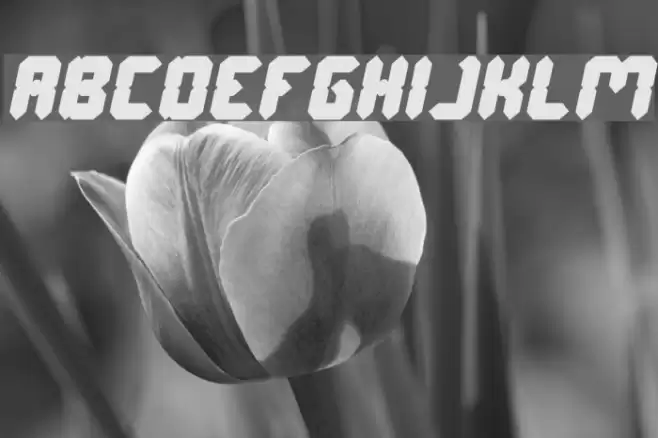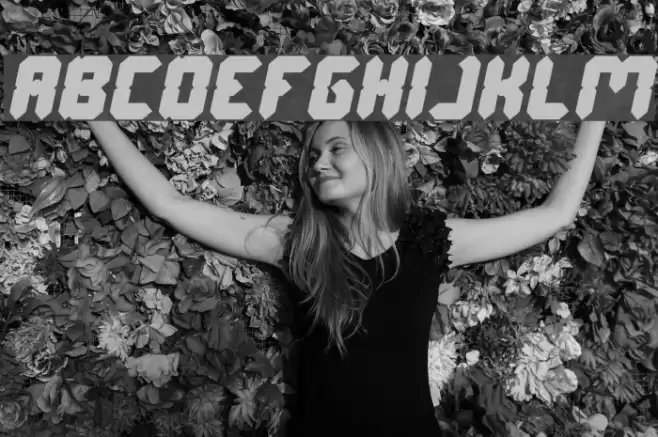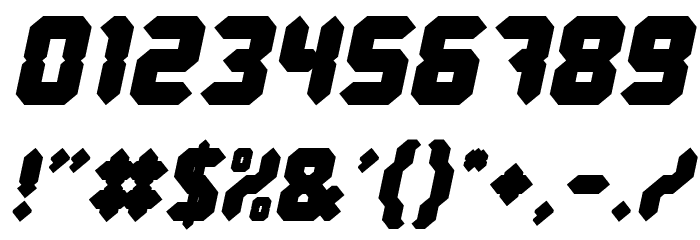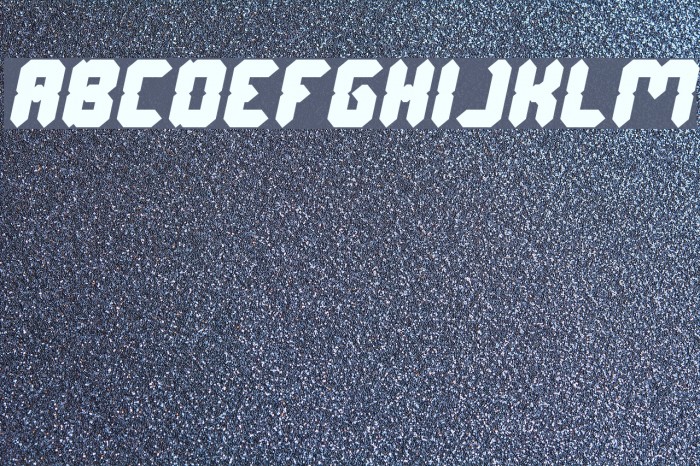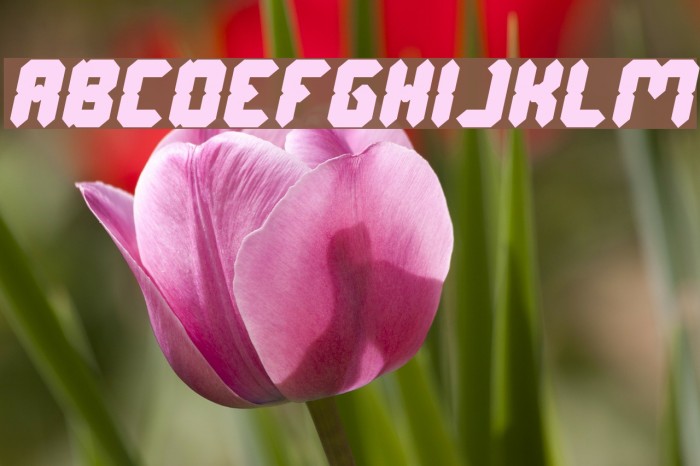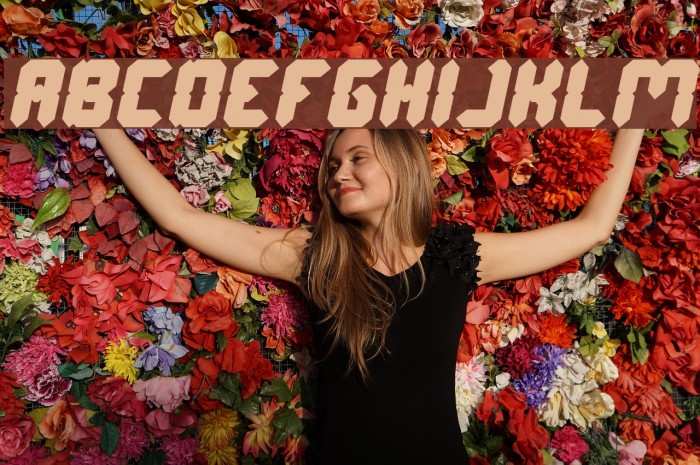
Digital Gothic Bold Italic Font
Digital Gothic Bold Italic Description
This font features a bold and italicized style with a distinctly digital and gothic aesthetic. The characters are angular and geometric, with sharp edges and a futuristic feel. The uppercase and lowercase letters maintain a consistent style, while the numbers and special characters complement the overall design. The boldness of the font is evident in its thick strokes, which are consistent throughout, giving it a strong presence. The italic slant adds a dynamic and energetic touch, making it suitable for modern and edgy designs.
A bold, italicized font with a digital gothic style and angular, geometric characters from Uncategorized fonts.
- Proposed Projects: Ideal for video game titles, tech branding, sci-fi posters, and edgy graphic designs.